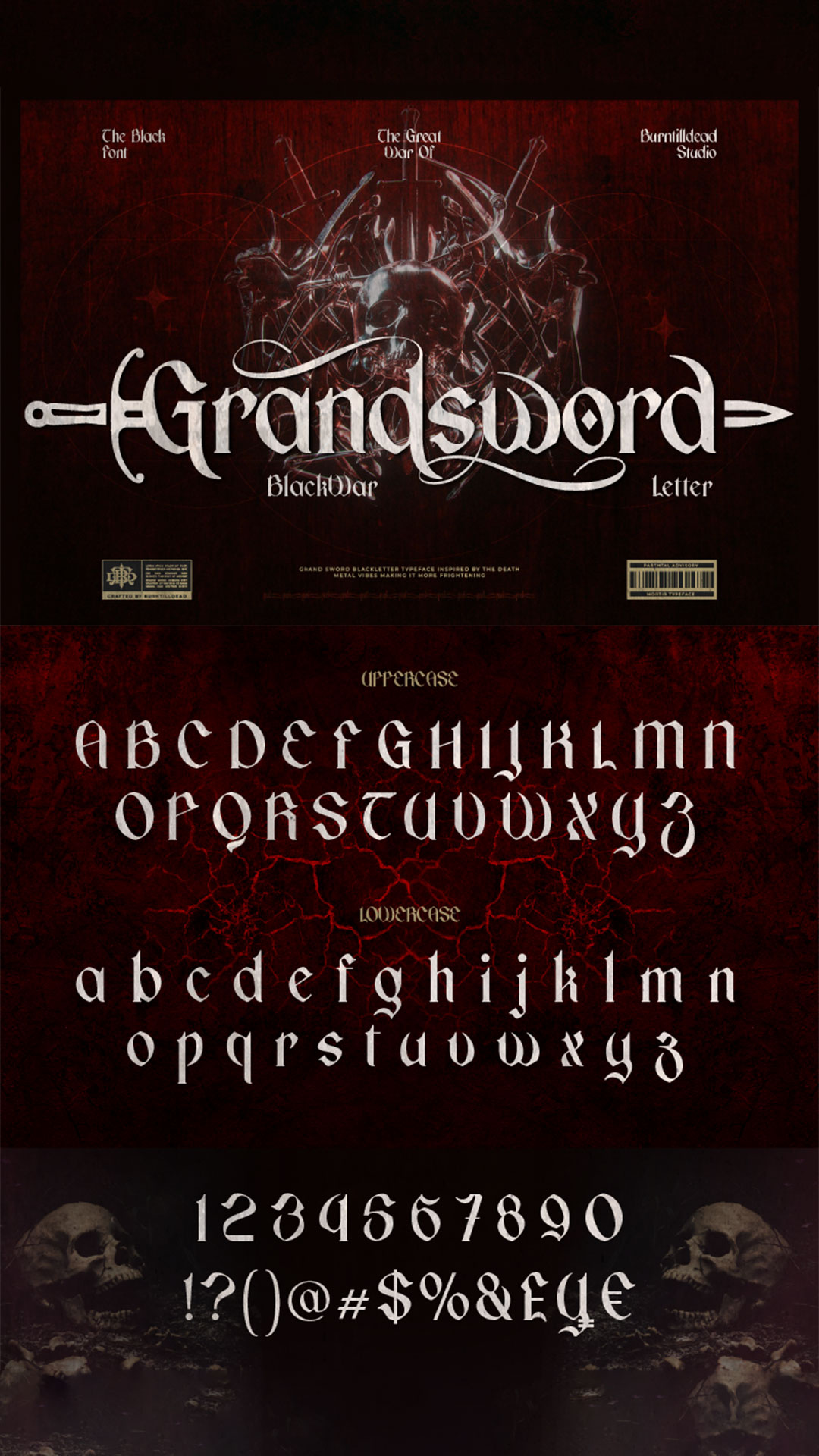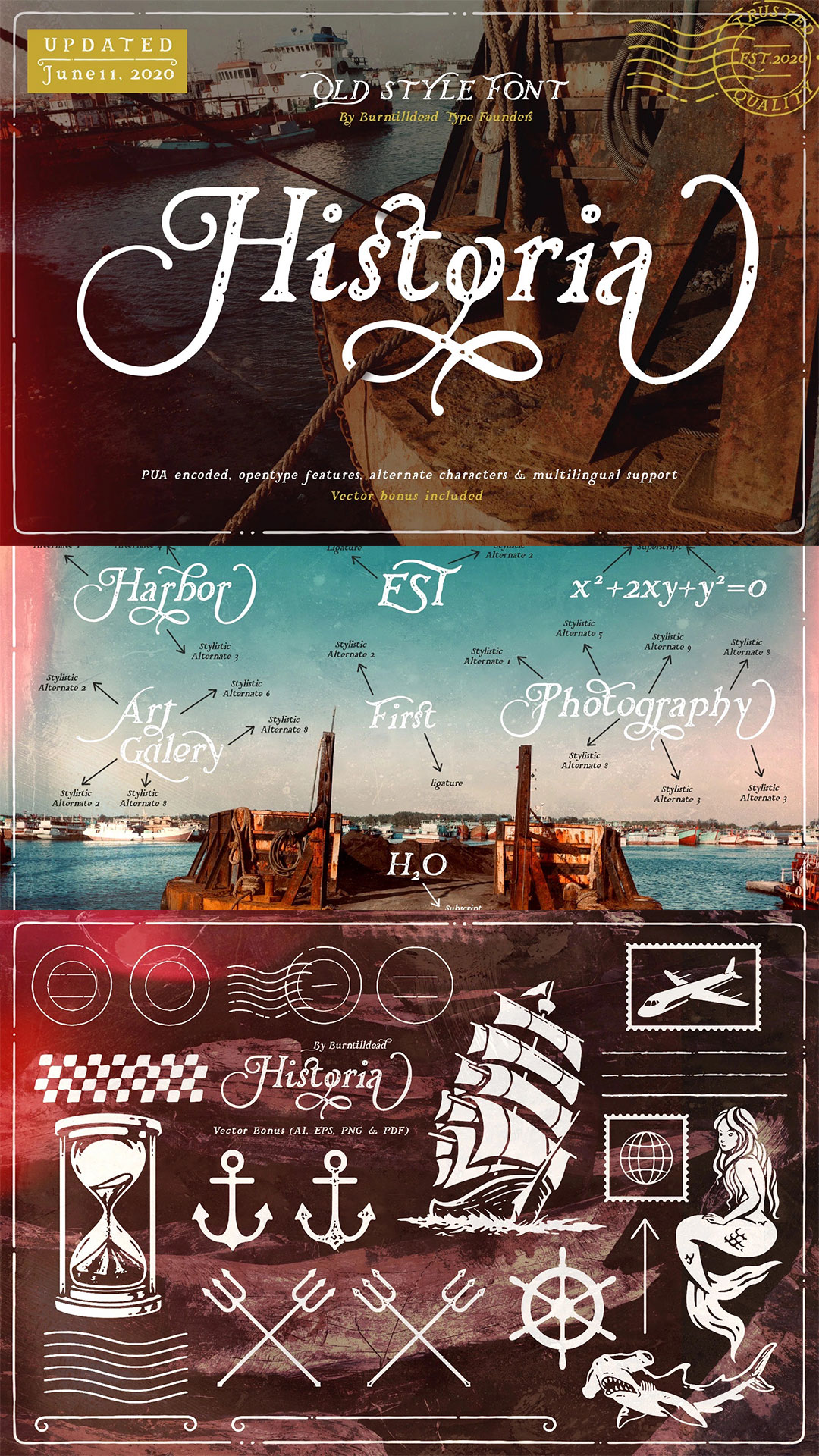
July’s Best-Selling Fonts: Hot Picks You Don’t Want to Miss!
July was a busy month for creatives, and some fonts stood out more than others! From clean modern styles to eye-catching statement fonts, a few top picks quickly became customer favorites. In this blog, we’ll take a closer look at the best-selling fonts in July—perfect if you’re searching for fresh inspiration or want to know what’s trending in the design world right now. Let's make it juicy and scroll-worthy!
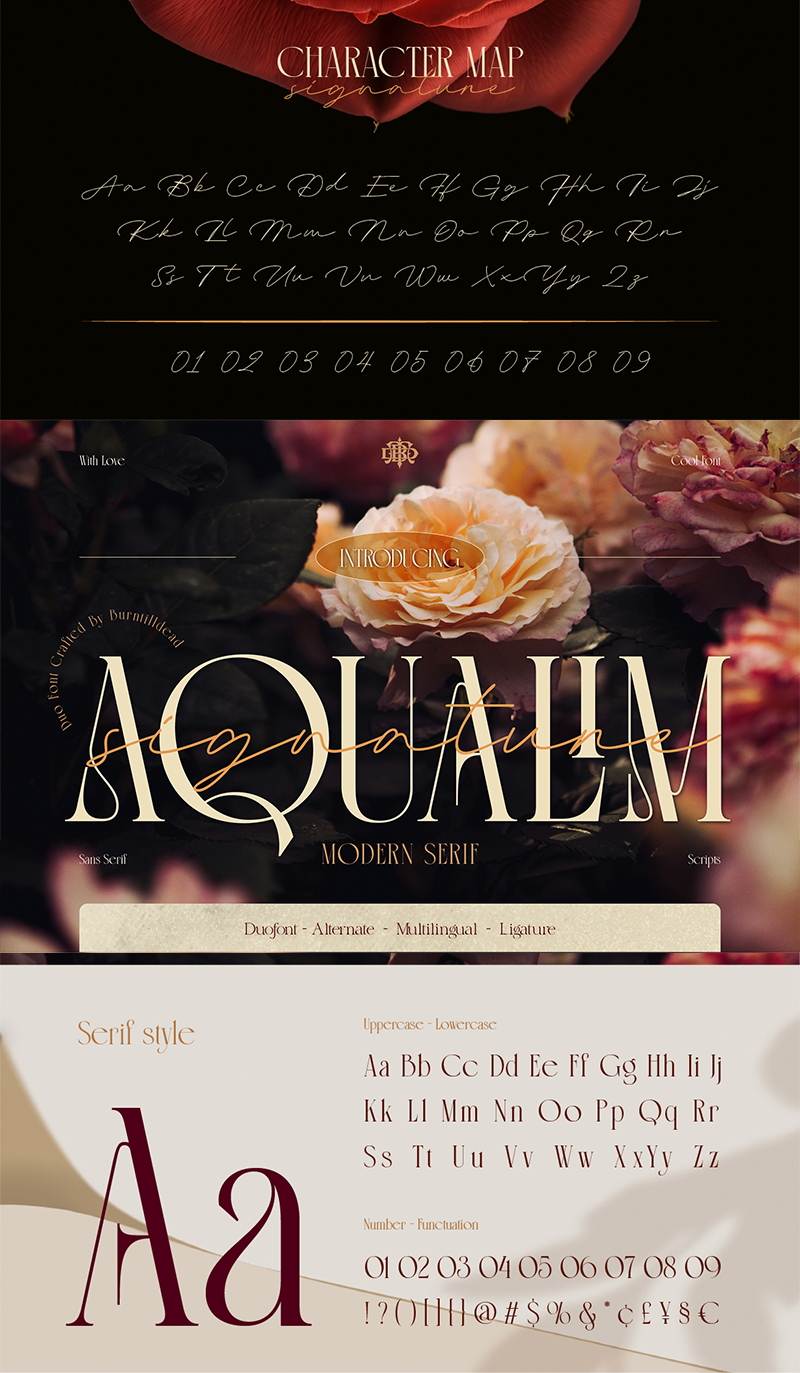
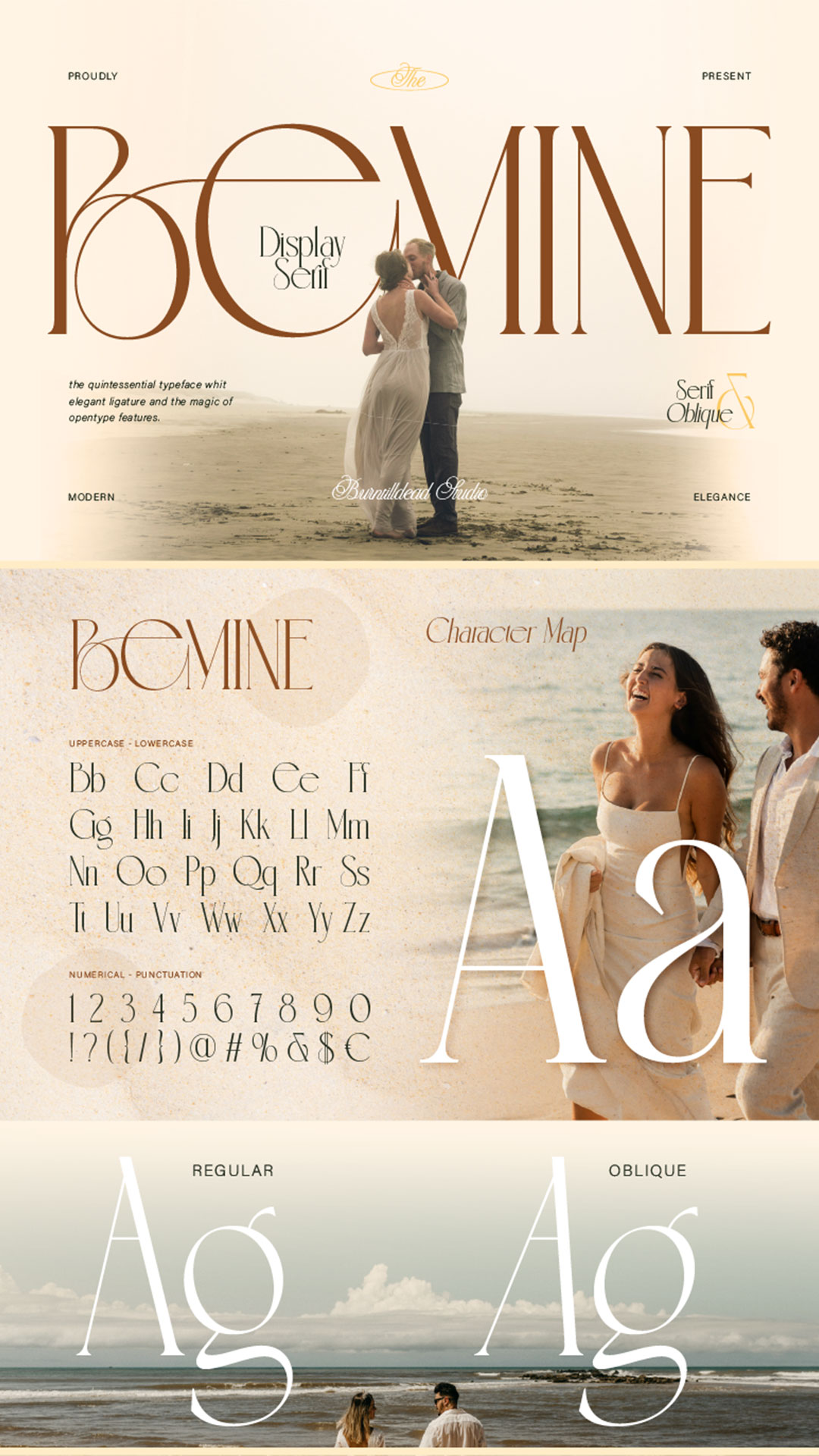Aqualim Signature
Aqualim Signature, when classic of serif meets the elegance of script. This duo font bring the aesthetic of classy and luxury look so its perfectly suit for headline, logo, covers, posters, quotes, magazine, wedding, product packaging, merchandise, social media, marketing materials and many more!
Bemine
Bemine, a display serif font with a unique and eye-catching look—perfect for designs that want to appear classy and romantic. This font features strong contrast between thick vertical strokes and thin horizontal lines, creating a glamorous, luxurious, and high-fashion feel. It’s perfect for wedding invitations, fashion branding, book covers, headlines, editorials, magazines, and any design project that needs a graceful with a strong presence look.
Grandsword
Grandsword, a blackletter font that evokes the aura of medieval warfare and the dark metal world. Its sharp, gothic, and ornamental letterforms reflect this intense atmosphere. With epic alternate characters, this font delivers a strong sense of classic style. The kind of font you’d expect to see on a death metal album cover, posters, tattoos, games or the title of a war film — perfect for designs that demand a touch of epic battle and dark beauty.
Historia
Our old style font called Historia. Embrace the elegance of the past with History font, where every letter tells a story of vintage allure and classic timeless. Life is a journey and every journey have their own special moment that gave a deep personal feeling, a memories to always remember and Historia font is trying to captured it. Came with full set of uppercase, lowercase, alternate uppercase, alternate lowercase, ligatures, discretionary ligatures, contextual alternate, subscript & superscript. Please see preview 5 to see the detail. You will receive some nautical vectors and post stamps on the following file.
Prestissimo Classy
Prestissimo Classy is a combination font package between copperplate script and retro serif style. A perfect combo for you who need elegant, stylish, retro, casual & professional look on the same plate.Save your priceless time with the best solution! The easiest way to bring professional calligrapher, Penmanship or spencerian script. Now you have this unique opportunity to try the early American handwriting. Really bring classy vibes & easy to use, Hundred of possibility looks. Powered with opentype features & PUA encoded.Our Prestissimo Classy is feature with contextual alternates and stylistic sets to broaden your possibilities – Common and extended ligatures are included. The set is supplemented by flourish ornaments to round out your design.Bonus: Ornament font (Flourish swashes).
And that wraps up our list of July’s best-selling fonts! Whether you’re into minimalist styles or bold statement typefaces, these fonts proved they’ve got what it takes to stand out. Don’t forget to explore them in more detail and see how they can elevate your next creative project. Stay tuned, more fresh fonts are coming your way soon!